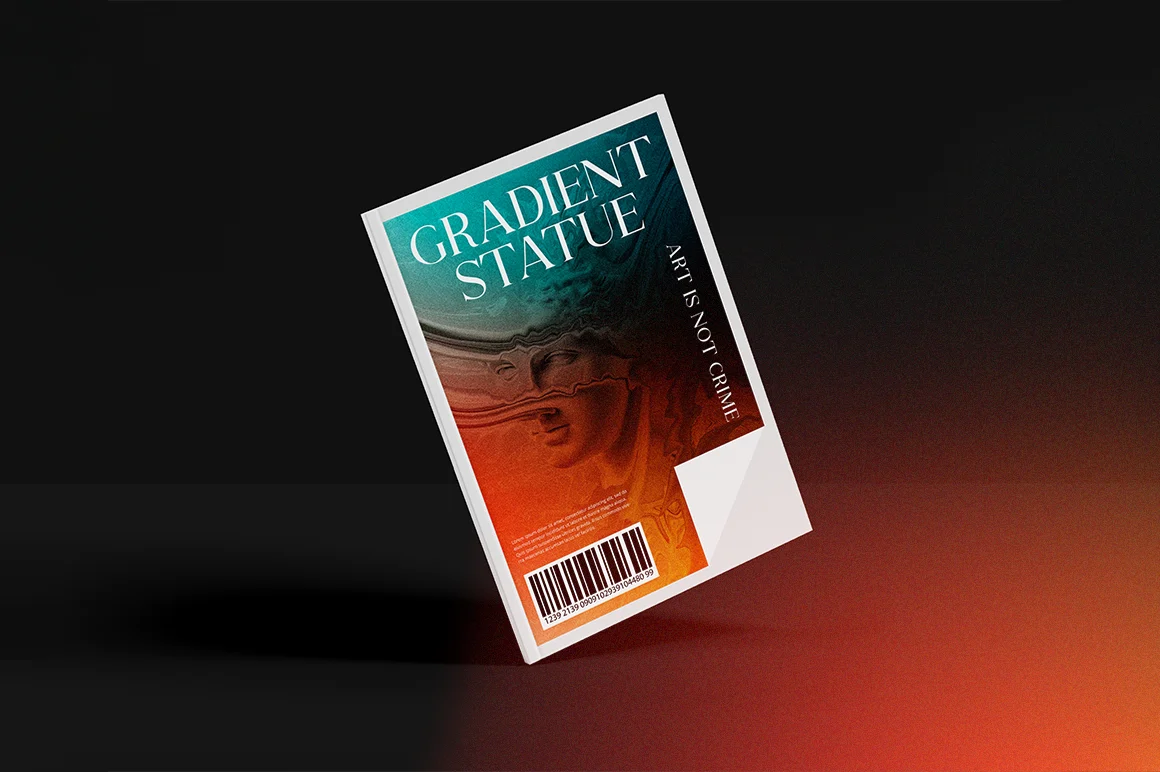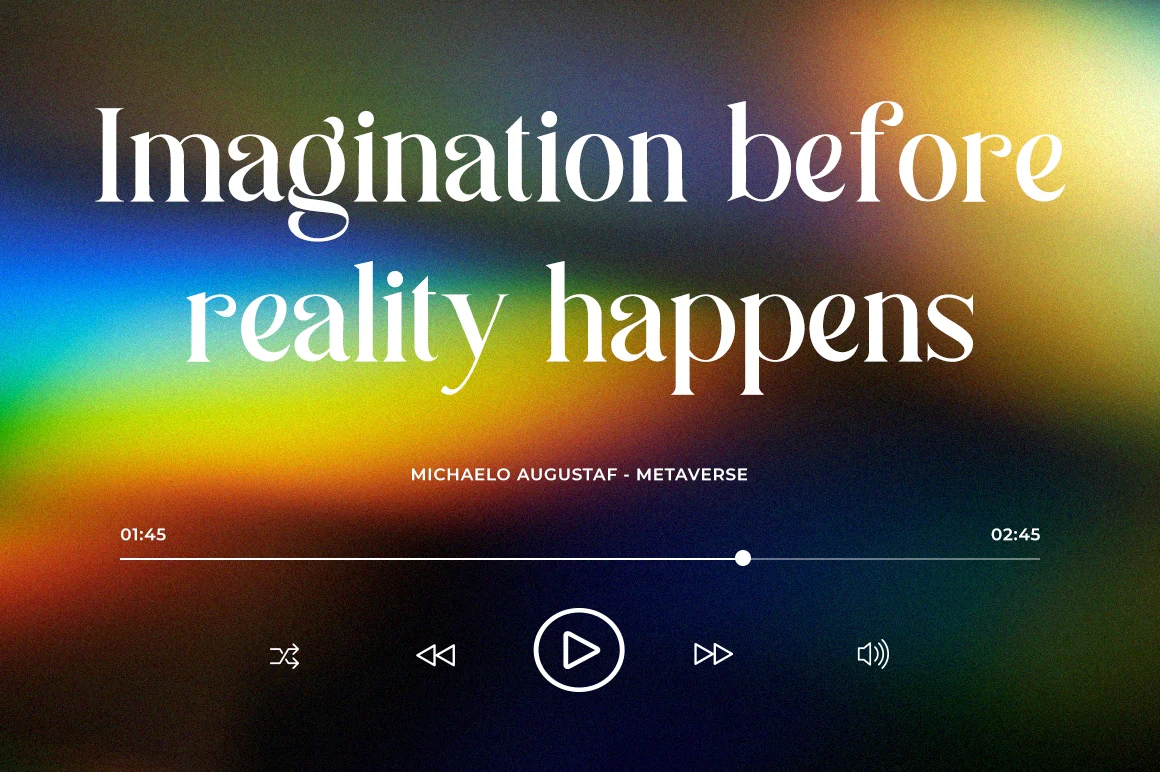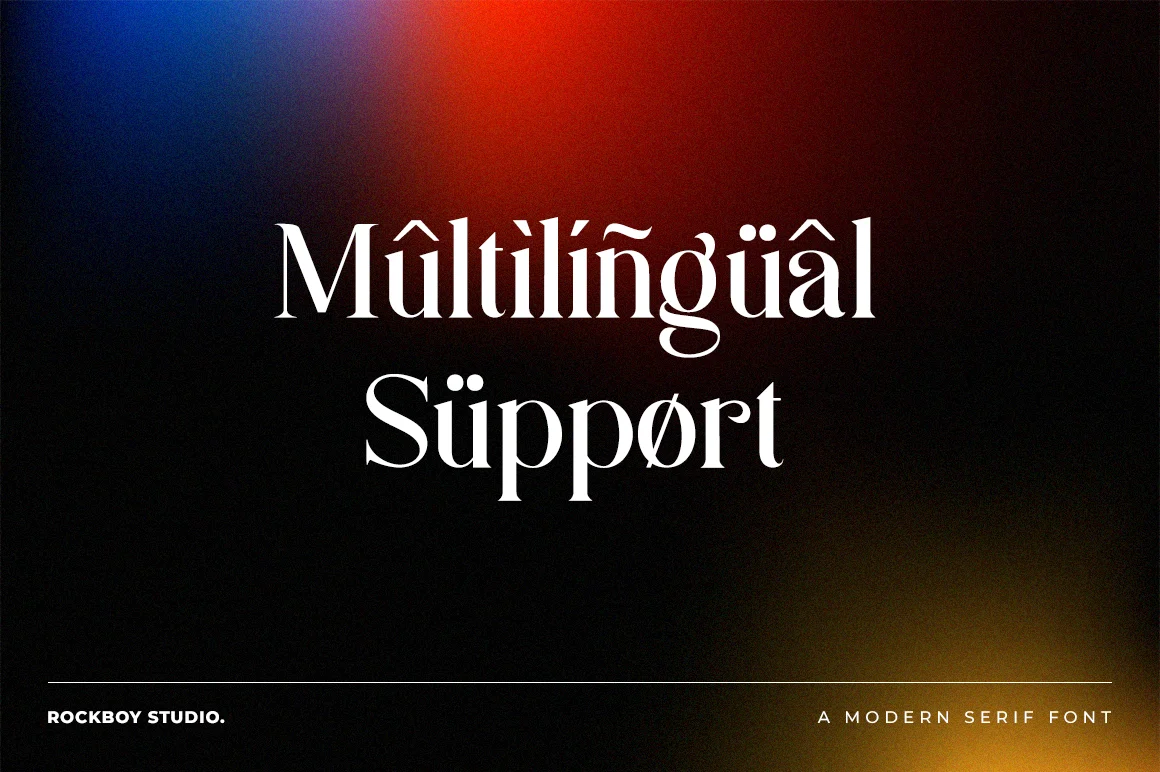
Racostane – Fashion Font
Racostane is an elegant, thin lettered and distinct serif font. Suitable to a wide variety of designs due to its neat and clean style, this font has the potential to become your favorite go-to font, no matter the occasion!